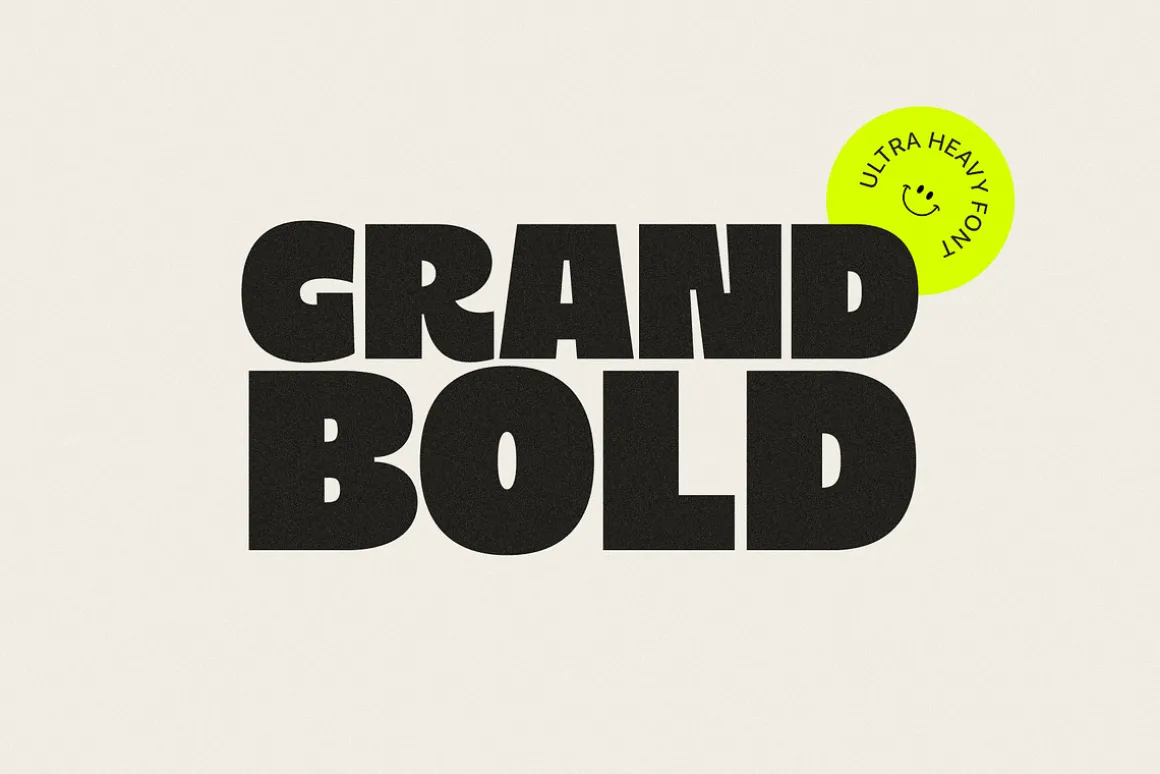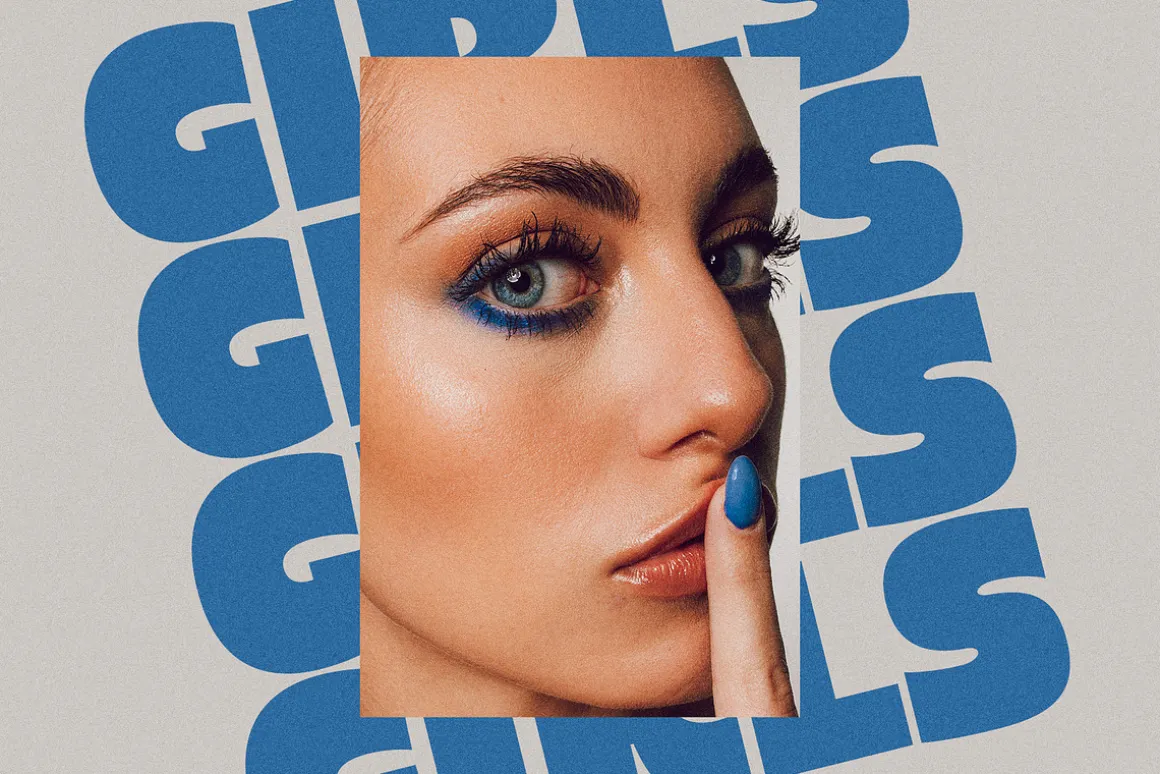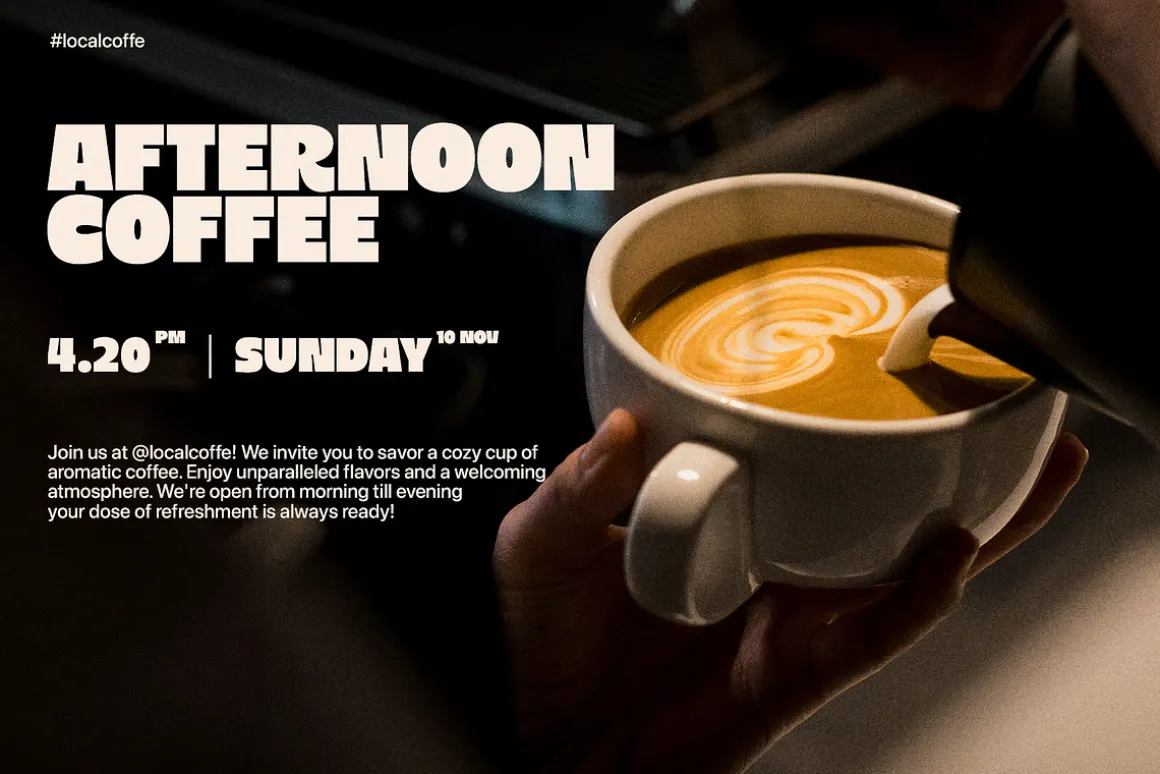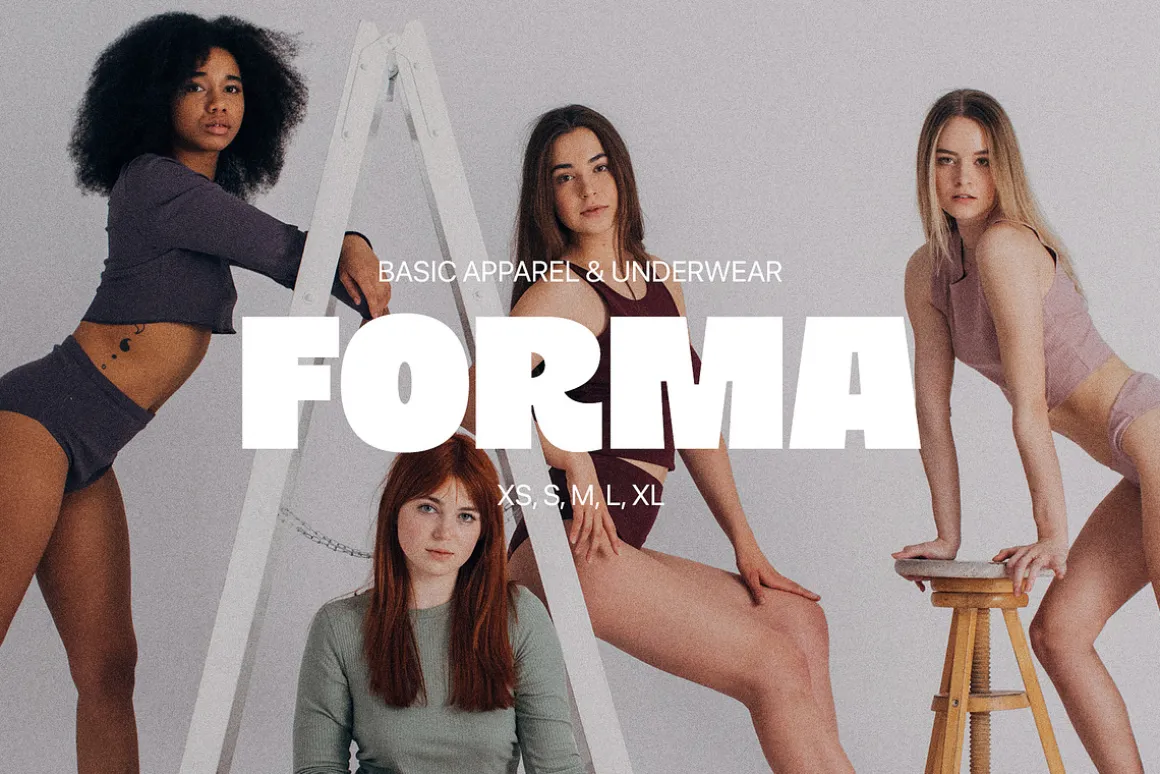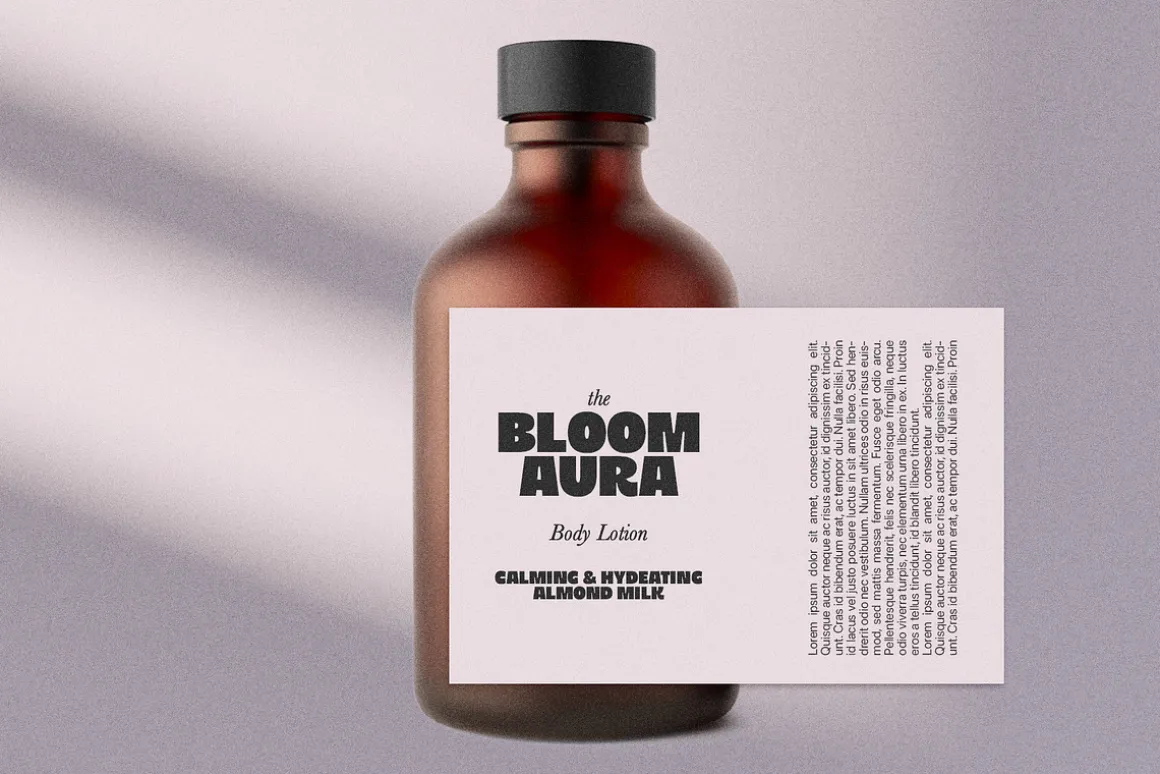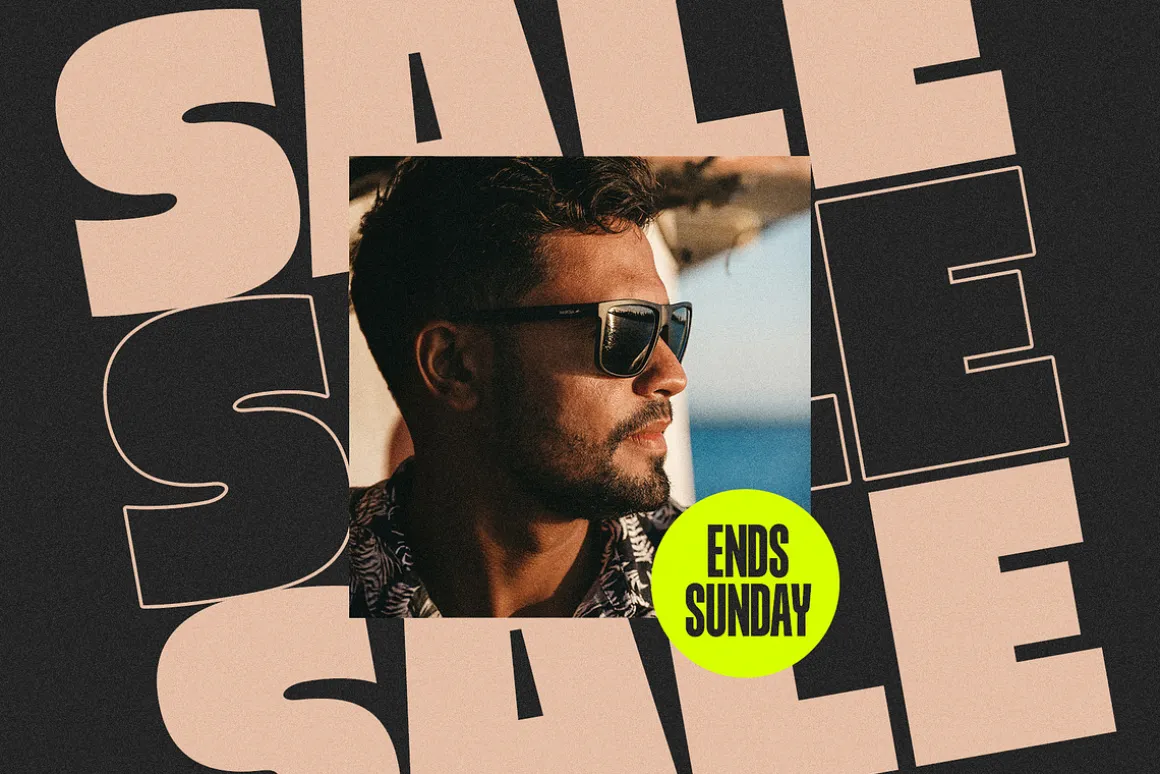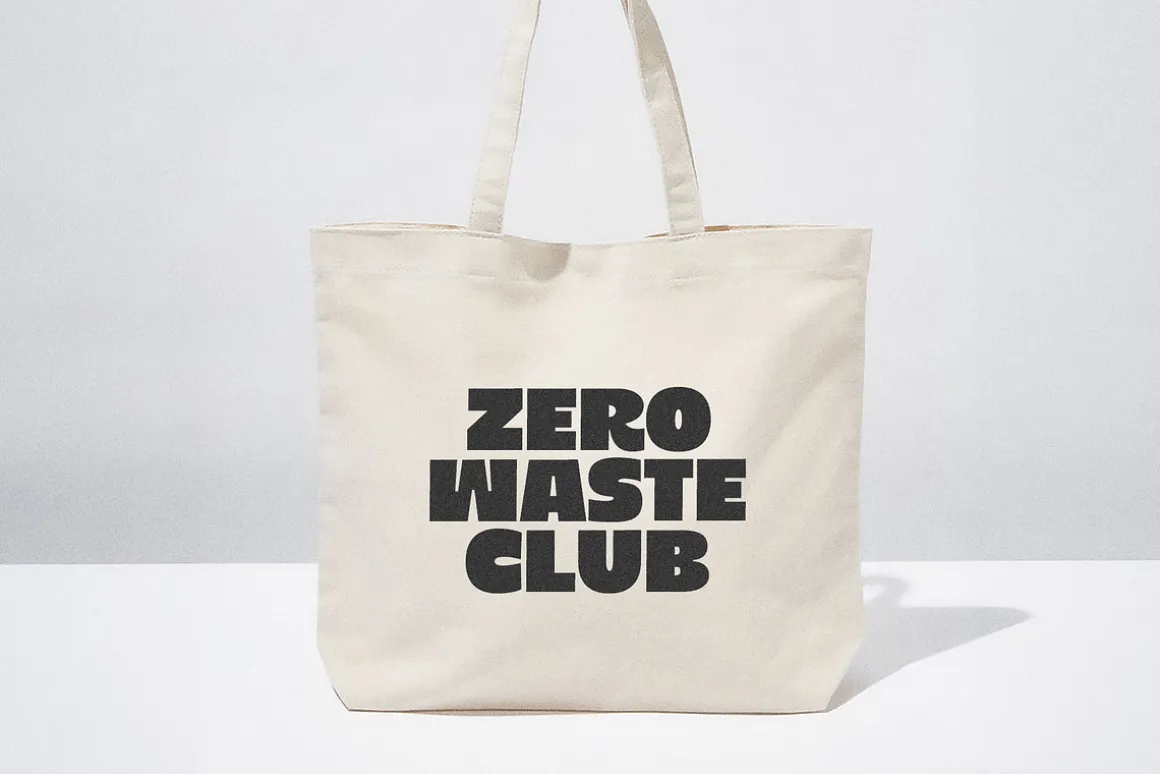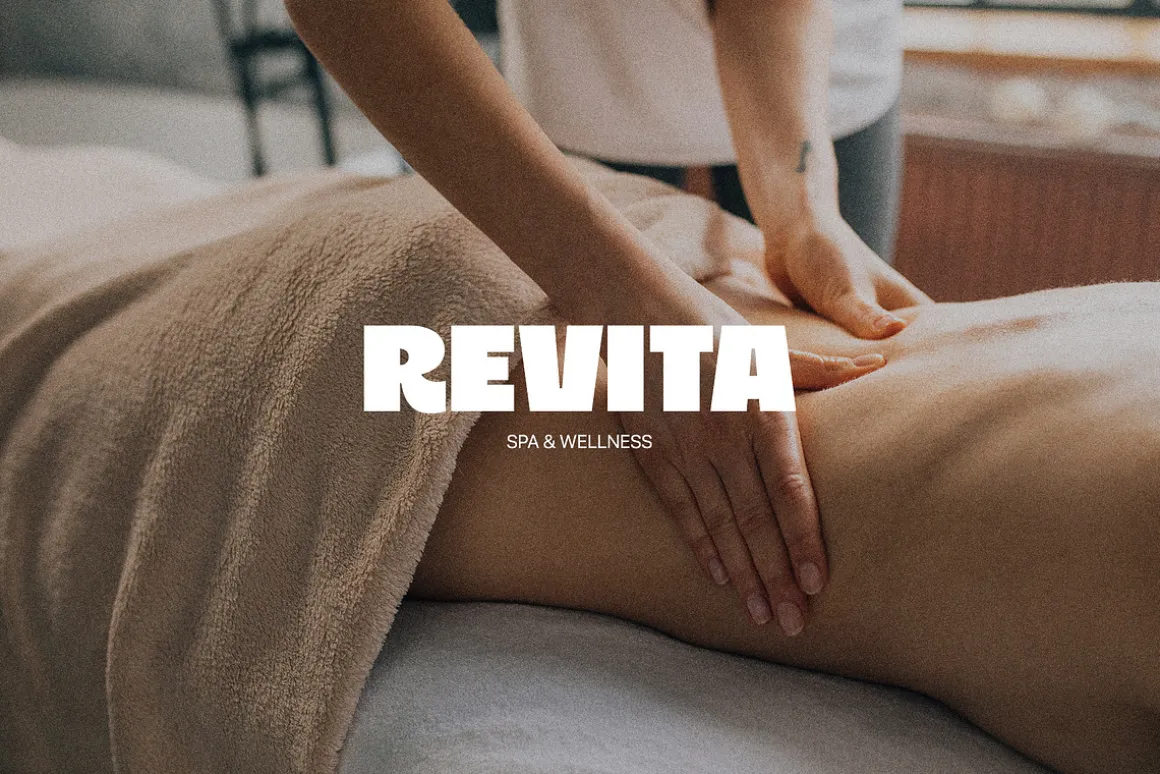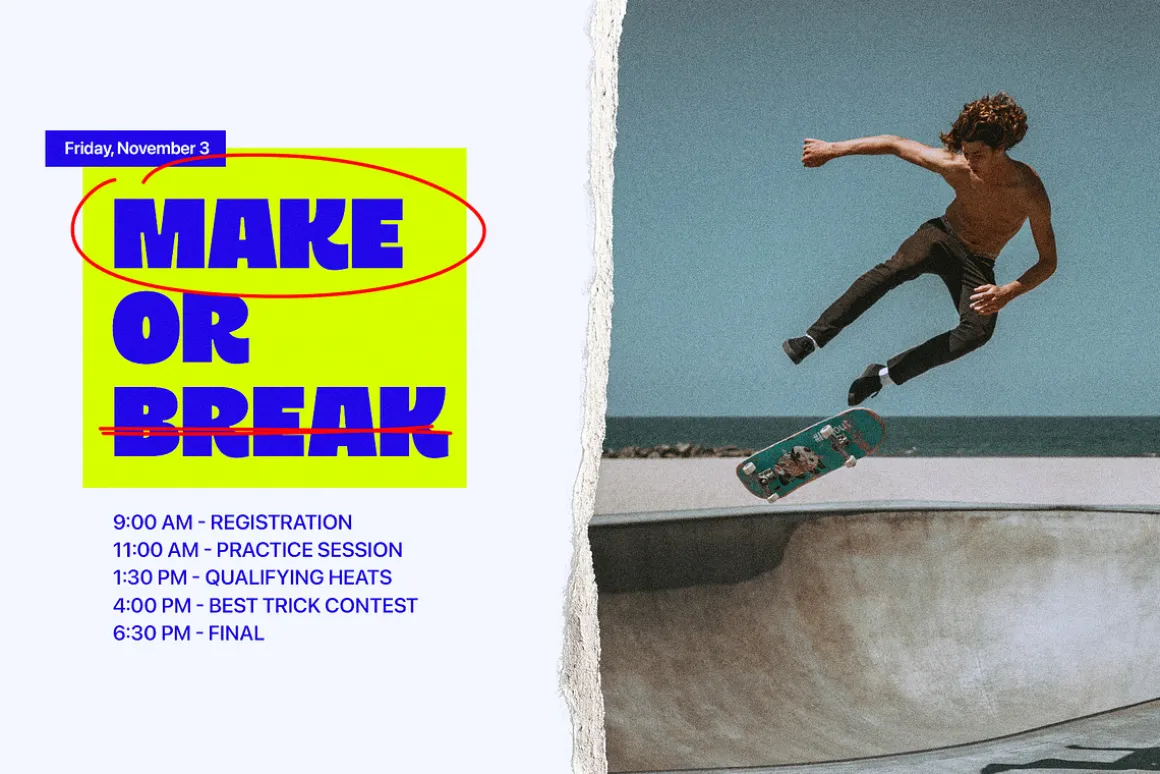
GRAND BOLD is ultra heavy font inspired by the nostalgia and aesthetics of the 80-90s. Ideal for advertising, headlines, editorial design, branding, and posters.
GRAND BOLD Font Features:
- Full Set of standard alphabet and punctuation
- Multilingual Characters AÁĂÂÄÀĀĄÅÃÆBCĆČÇĊDÐĎĐEÉĚÊËĖÈĒĘẼFGĞĢĠḠHĦIIJÍÎÏİÌĪĮĨJKĶLĹĽĻŁMNŃŇŅÑ OÓÔÖÒŐŌØÕŒPÞQRŔŘŖSŚŠŞȘẞTŤŢȚUÚÛÜÙŰŪŲŮŨVWẂŴẄẀXYÝŶŸỲỸZŹŽŻ